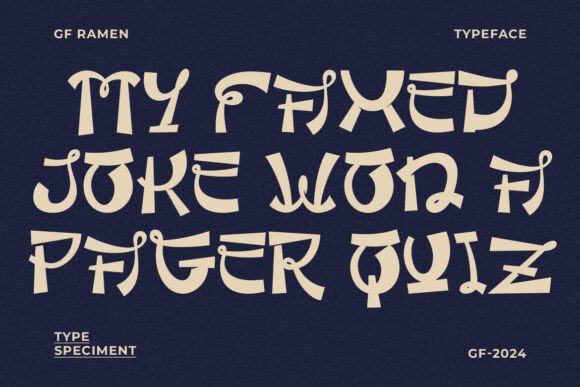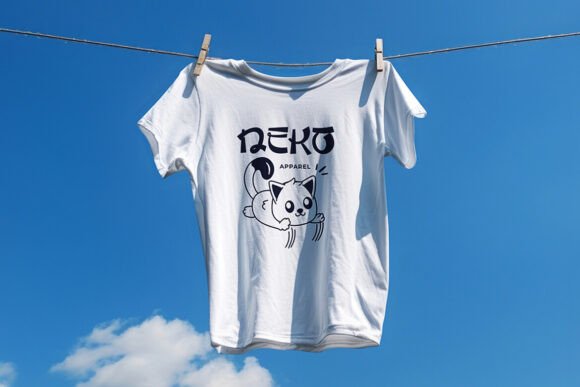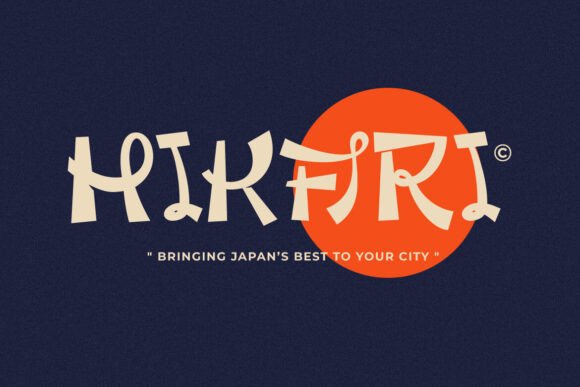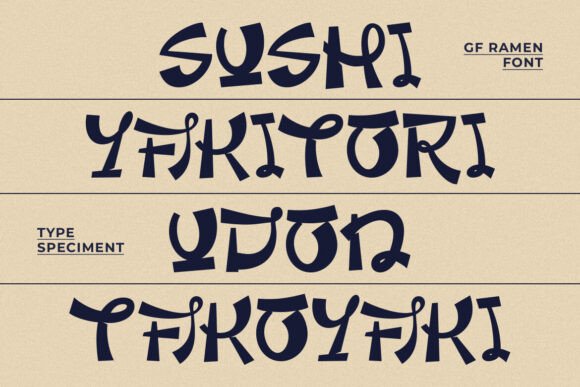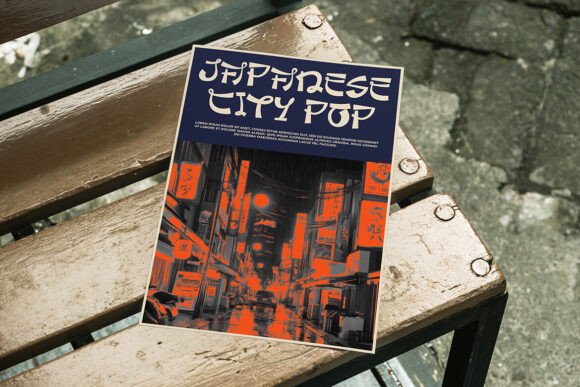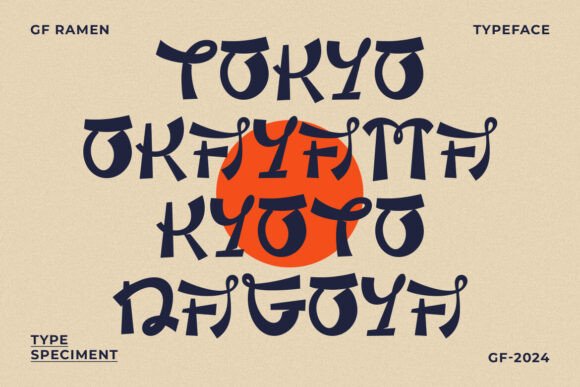
Introducing Groovy Ramen: The Ultimate Decorative Display Font for Modern Designs
Are you a designer or crafter looking for a font that combines traditional Japanese aesthetics with a modern twist? Look no further than Groovy Ramen, a bold and stylish decorative display font that’s perfect for creating eye-catching headlines, posters, and branding materials.
Inspired by Japanese Writing: A Unique Blend of Tradition and Modernity
Groovy Ramen is a font that draws inspiration from Japanese writing, featuring bold and modern design elements that capture the essence of Japanese aesthetics. The font’s creator has skillfully infused a contemporary and stylized twist, making it an excellent choice for designers who want to add a touch of elegance and sophistication to their work.
Key Features of Groovy Ramen Font
- Bold Strokes: Groovy Ramen features bold strokes that give it a strong and confident appearance, making it perfect for headlines and titles.
- Intricate Details: The font’s intricate details add a level of sophistication and elegance, making it suitable for high-end branding and design projects.
- Modern Design Elements: Groovy Ramen’s modern design elements give it a fresh and contemporary feel, making it perfect for designers who want to create modern and stylish designs.
- Japanese-Inspired: The font’s Japanese inspiration adds a unique and cultural touch, making it an excellent choice for designers who want to incorporate Asian aesthetics into their work.
Uses of Groovy Ramen Font
Groovy Ramen is a versatile font that can be used in a variety of design projects, including:
- Headlines and Titles: The font’s bold strokes and intricate details make it perfect for creating eye-catching headlines and titles.
- Posters and Flyers: Groovy Ramen’s modern design elements and Japanese inspiration make it an excellent choice for creating posters and flyers that stand out.
- Branding and Logo Design: The font’s unique blend of traditional and modern elements makes it suitable for branding and logo design projects that require a touch of elegance and sophistication.
- Packaging Design: Groovy Ramen’s bold and stylish appearance makes it perfect for packaging design projects that require a modern and eye-catching look.
Tips for Using Groovy Ramen Font
Here are some tips for using Groovy Ramen font in your design projects:
- Use it sparingly: Groovy Ramen is a bold font, so use it sparingly to avoid overwhelming your design.
- Pair it with a simple font: Pair Groovy Ramen with a simple font to create contrast and add visual interest to your design.
- Experiment with colors: Groovy Ramen looks great in bold colors, so experiment with different colors to find the one that works best for your design.
Groovy Ramen is a unique and stylish decorative display font that’s perfect for designers and crafters who want to add a touch of Japanese aesthetics to their work. With its bold strokes, intricate details, and modern design elements, Groovy Ramen is an excellent choice for creating eye-catching headlines, posters, and branding materials. So why not give it a try and see how it can elevate your designs?